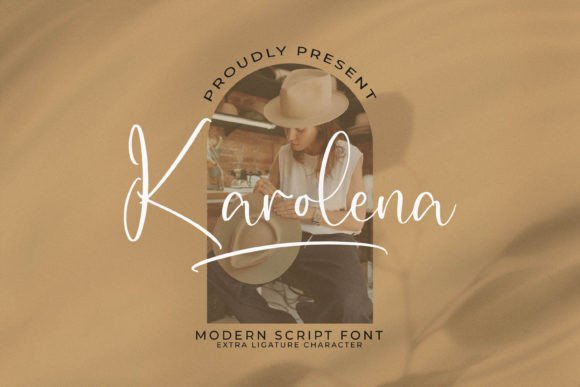
Step into the world of Karolena, a captivating script font that breathes life into your creative endeavors. With its elegant curves and timeless beauty, Karolena isn't just a font; it's an artistic journey that elevates your designs to new heights.
Crafted by integritypestudio, Karolena is a modern masterpiece meticulously designed to reflect the essence of sophistication and grace. Each letter dances across the page, carrying a weight of elegance and charm that adds a touch of distinction to any project.
Whether you're designing logos that demand attention, branding projects that exude professionalism, homeware designs with a touch of warmth, or product packaging that captivates, Karolena is your perfect companion. Its versatility extends to mugs, quotes, posters, shopping bags, t-shirts, and book covers, adding a personal touch that resonates with your audience.
In the realm of special events, Karolena shines as a beacon of elegance. Its presence on invitation cards, greeting cards, and labels elevates these ordinary items into cherished keepsakes, imbued with a timeless charm that your guests will adore.
Photographers and graphic designers alike will find solace in Karolena's ability to transform ordinary images into captivating works of art. Its delicate strokes add depth and dimension, while its effortless flow guides the viewer's eyes through your visual storytelling.
As you explore the endless possibilities of Karolena, you'll discover a boundless font that redefines creativity and innovation. Its essence is embedded in its versatility, allowing you to craft designs that speak volumes without uttering a single word.
So, embrace the allure of Karolena, a font that transcends the boundaries of ordinary typography. Let your designs bloom with artistry, sophistication, and a touch of timeless elegance. The journey begins now.